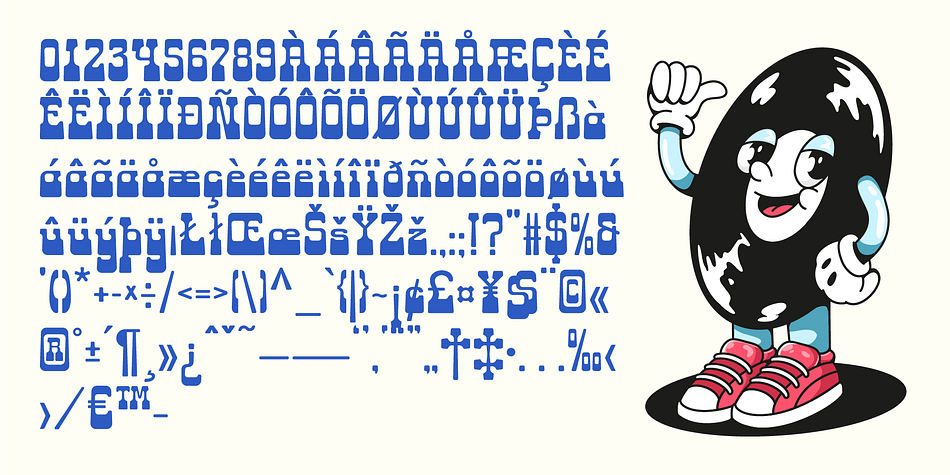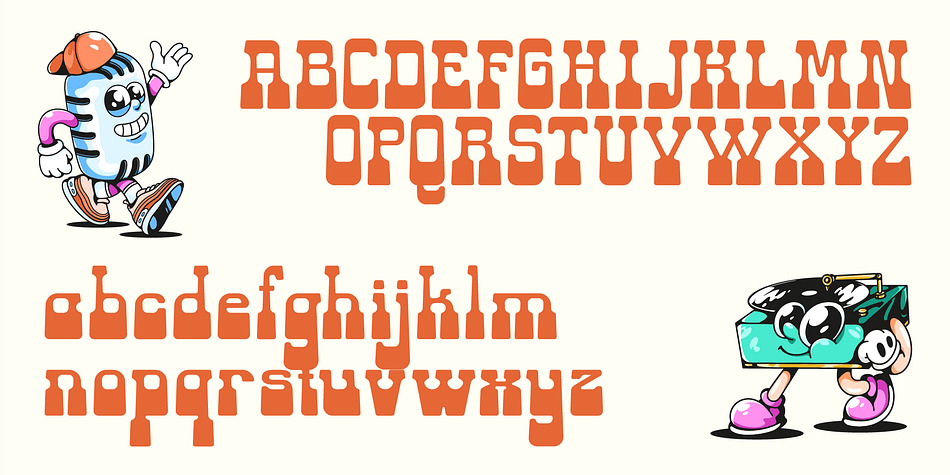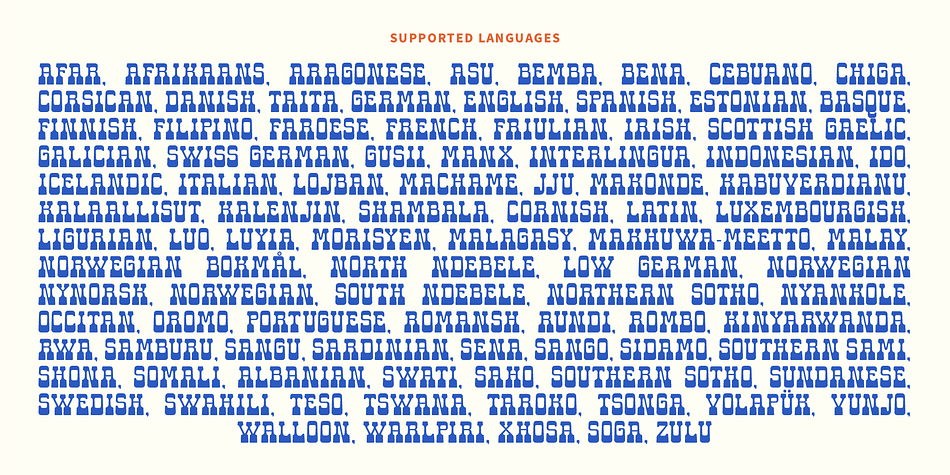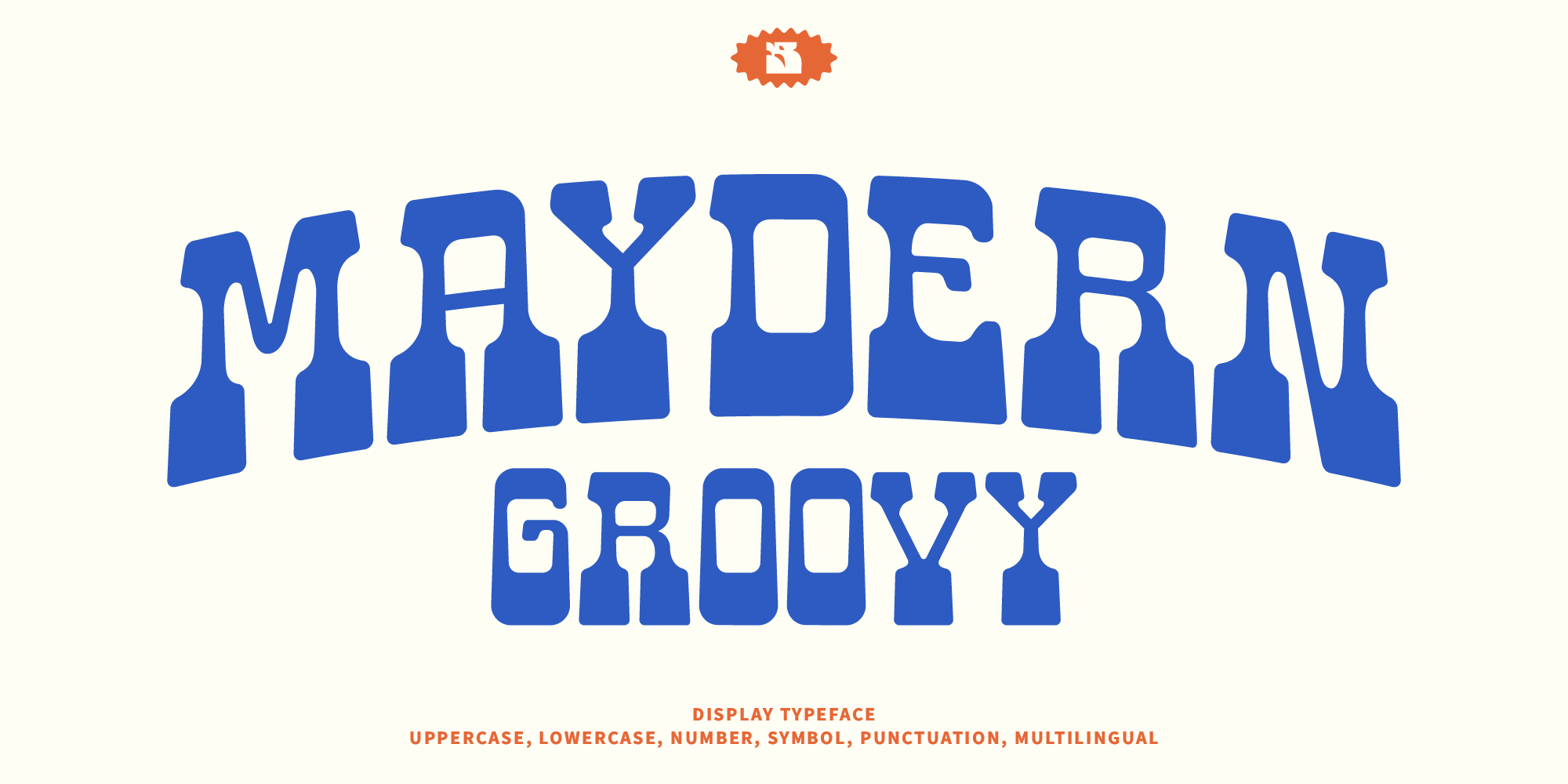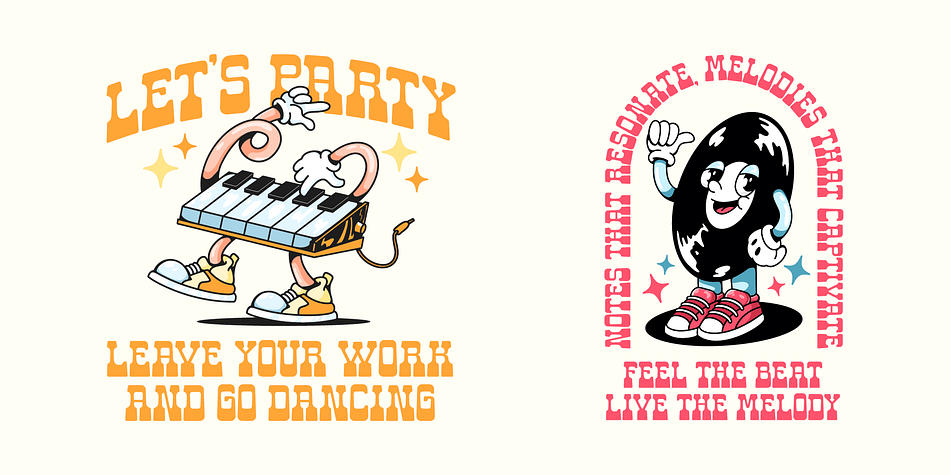
Maydern Groovy
Designed by Anggil Sukma, Maydern Groovy is a retro font family. This typeface has two styles and was published by Brainwaves Studio.
Introducing Maydren Groovy Font—a retro-inspired, fun, and unique typeface that adds a playful, nostalgic vibe to any project. Perfect for posters, logos, t-shirts, and social media graphics, this font brings a funky 70s groove to life with its unique, vibrant style. Whether you’re aiming for a vintage aesthetic or want to stand out with a unique, eye-catching design, Maydren Groovy is versatile and easy to use.